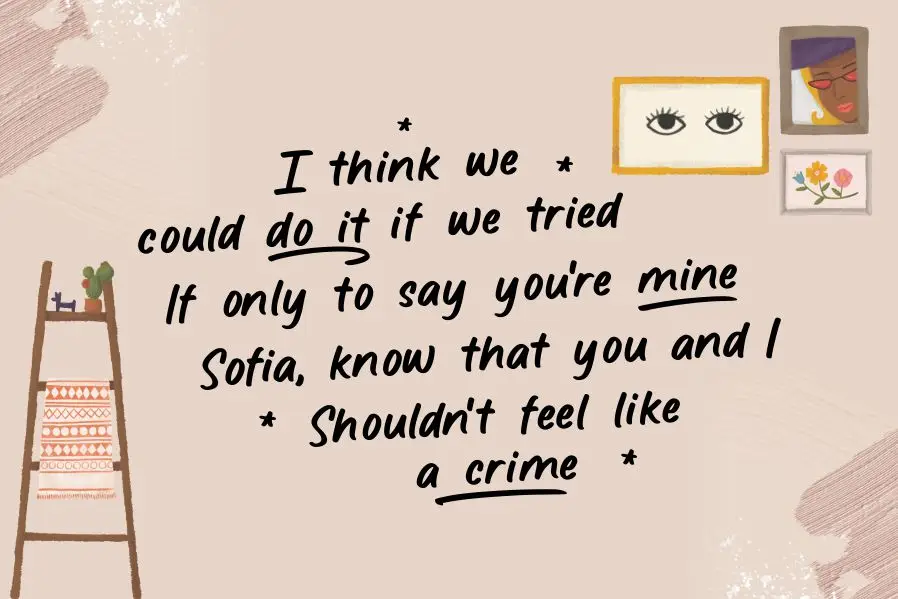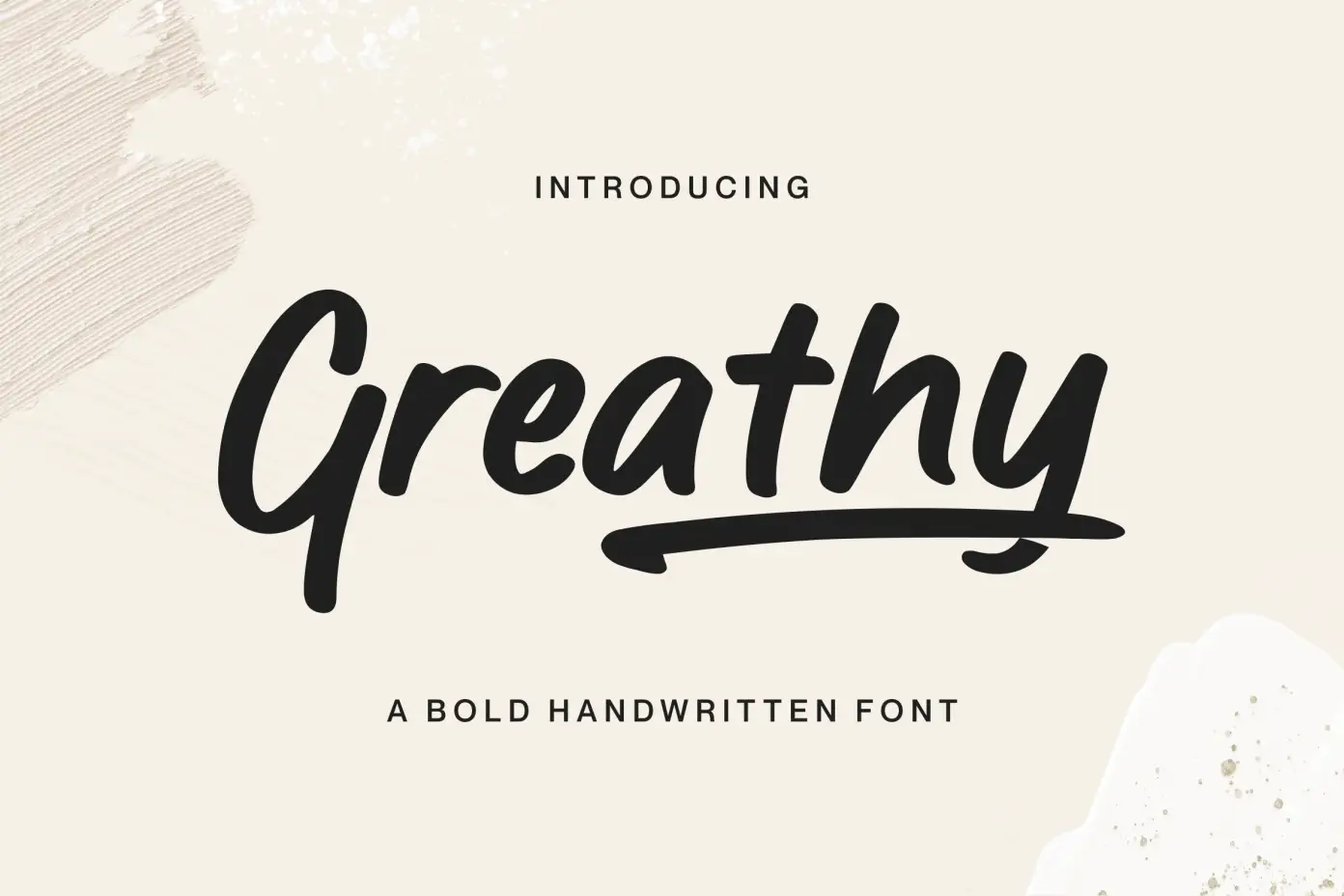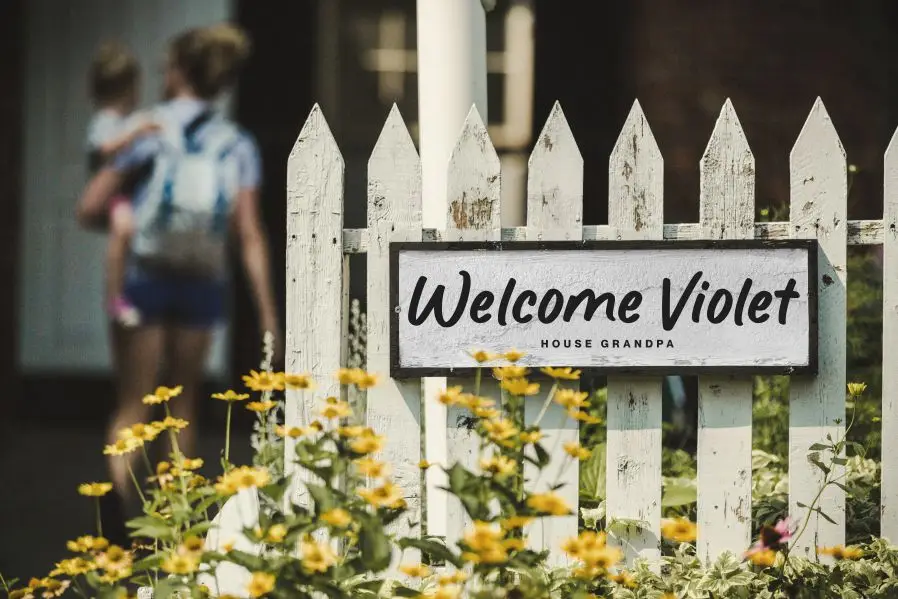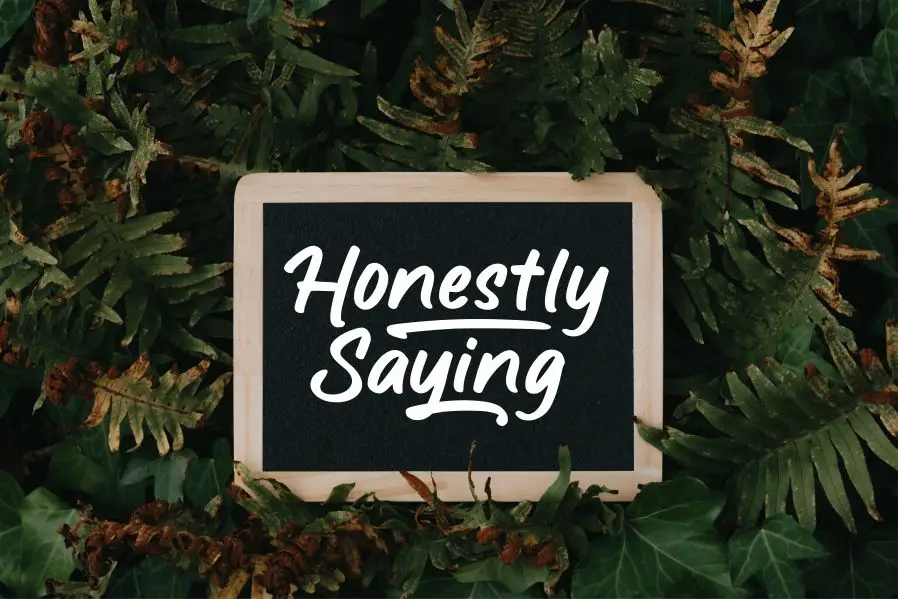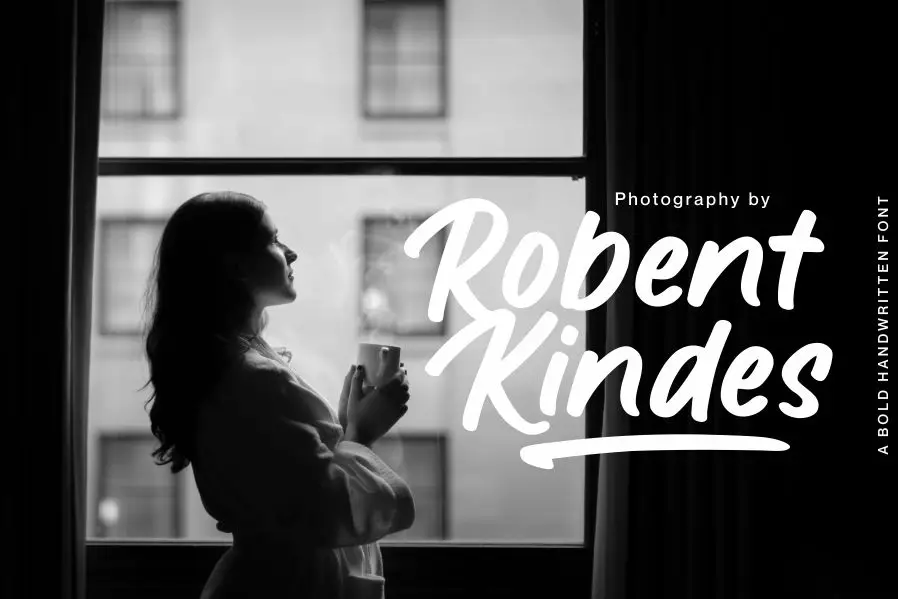
Greathy Script Font
The Greathy Script Font is a beautifully crafted typeface that embodies elegance and sophistication. With its flowing curves and unique character shapes, this font is perfect for a variety of creative projects.
• Stylish script design
This font is ideal for branding, logos, invitations, and any project that requires a touch of elegance. Its versatile nature allows it to be used in both digital and print formats.